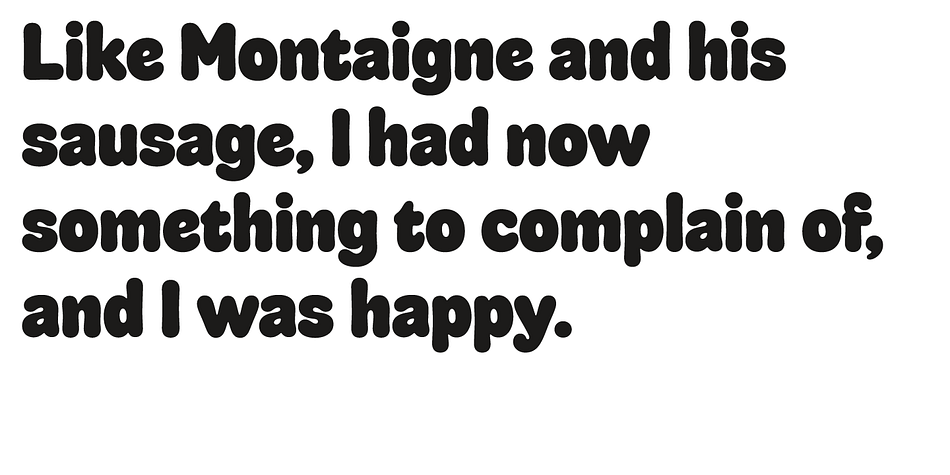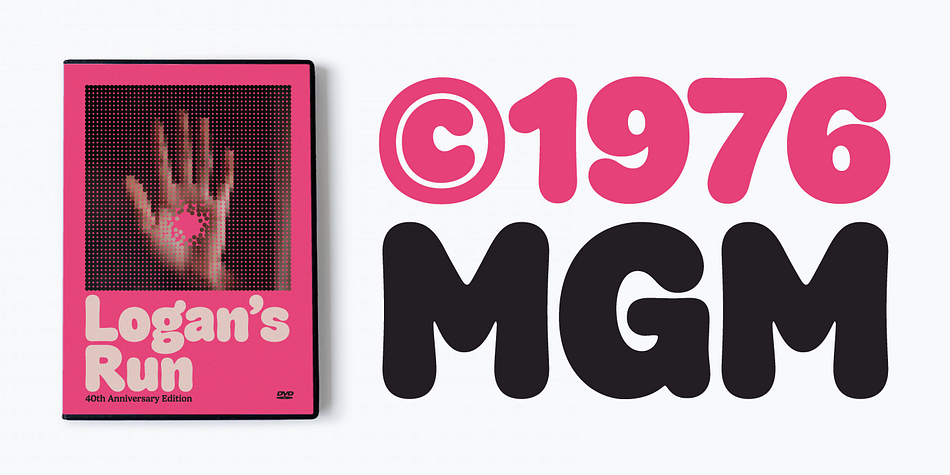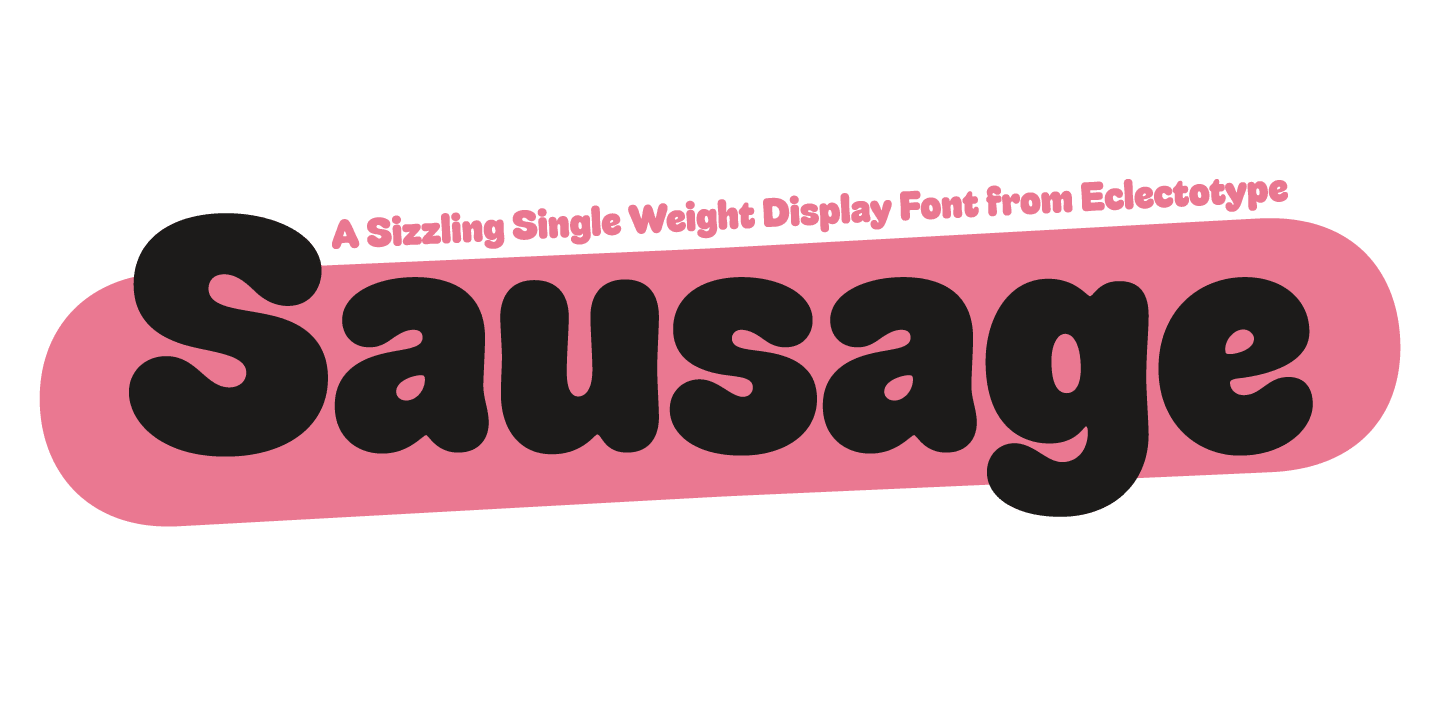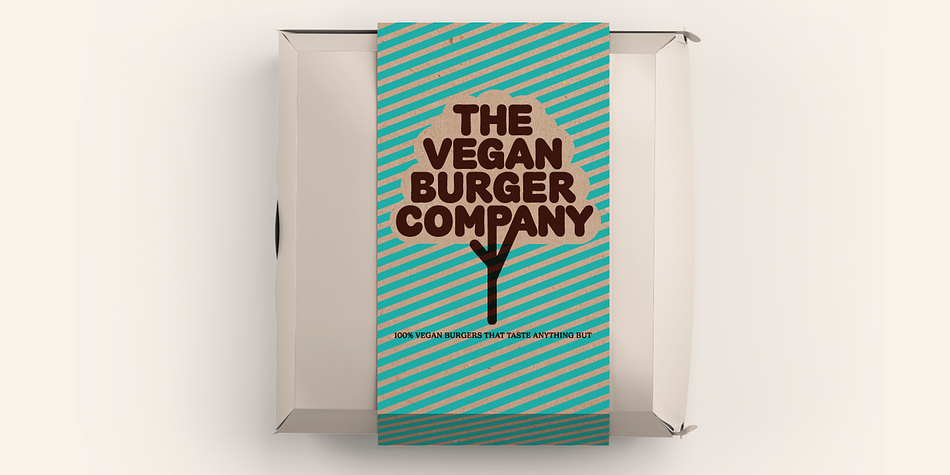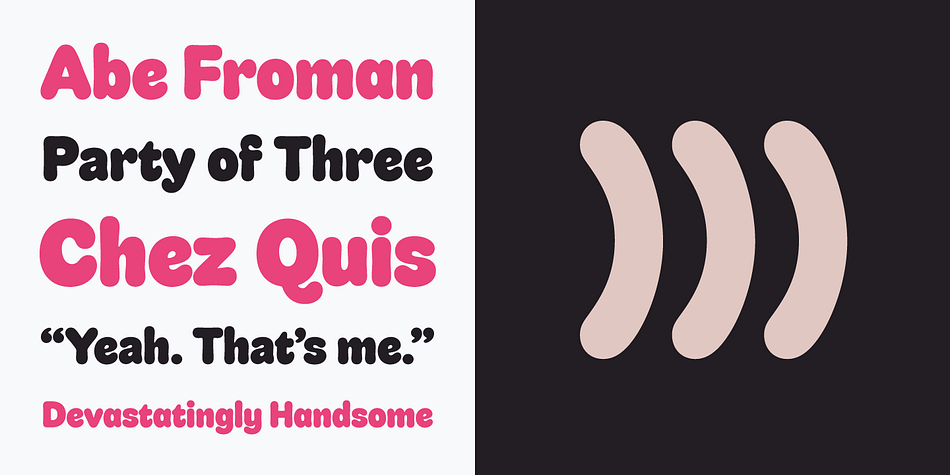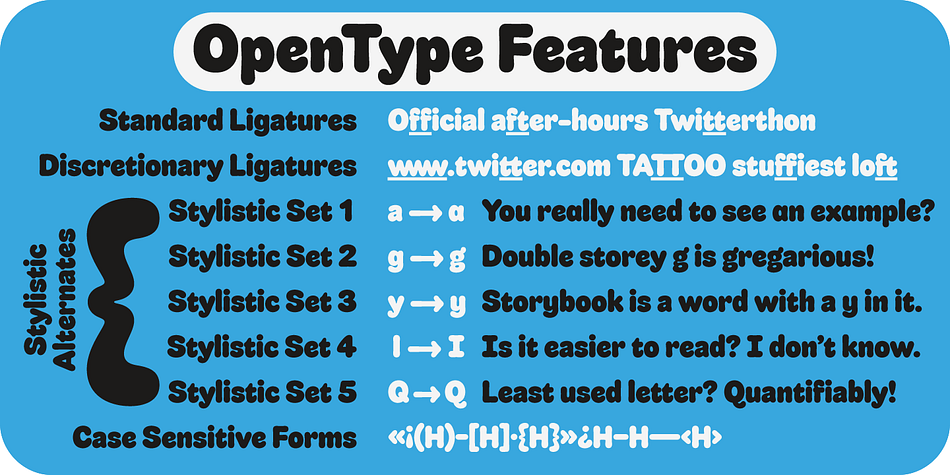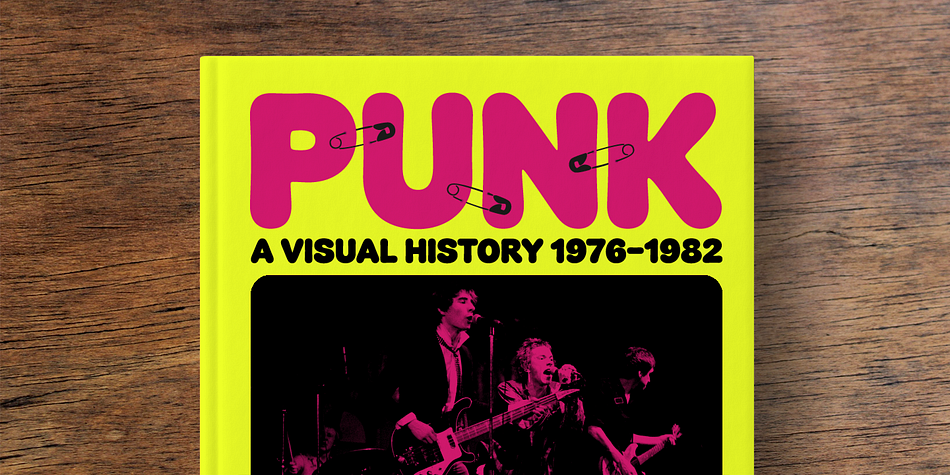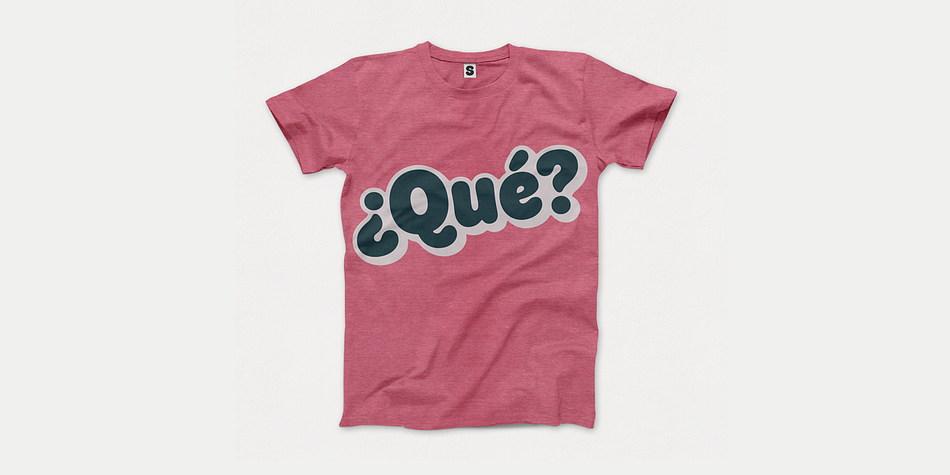
Sausage
Designed by Dave Rowland, Sausage is a display sans and sans serif font published by Schizotype Fonts.
Sausage is unapologetically bold and bulbous. Influenced by magnetic fridge letters, hot dogs and 70s phototype fonts, it is retro, but not cloyingly so.
It was a deliberate plan to make Sausage only a single style typeface. The freedom that not having to think about how the font should relate to other weights allowed me to push the glyphs to places they might not otherwise have been able to go.
There isn’t a single corner in the entire font, and you’d be hard pushed to find a straight line. This is as soft and friendly as they come, and still equipped with numerous ligatures, alternates and arrows for sophisticated typography.